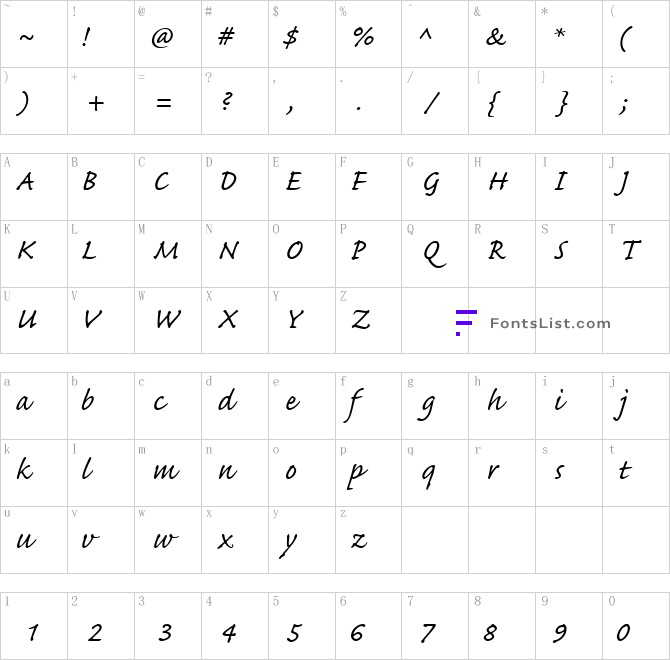
- Font Name:Caflisch Script Web Pro
CaflischScriptWebPro.ttf is a very beautiful artistic font, CaflischScriptWebPro.ttf is widely used in the design and printing of various books and pictures,CaflischScriptWebPro.ttf has a strong visual impact,CaflischScriptWebPro.ttf is a commonly used font in newspapers, magazines and books, and is used in posters, e-commerce Poster design, store design, logo design, font design and other fields.CaflischScriptWebPro.